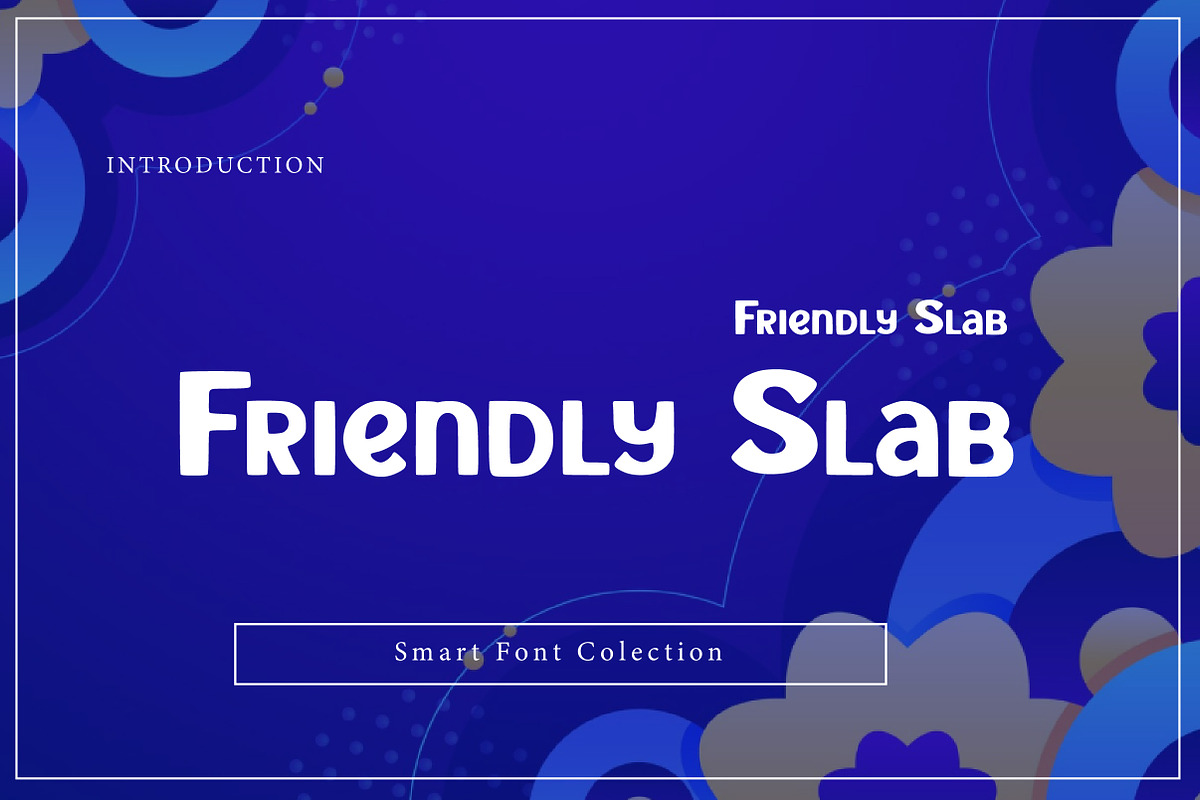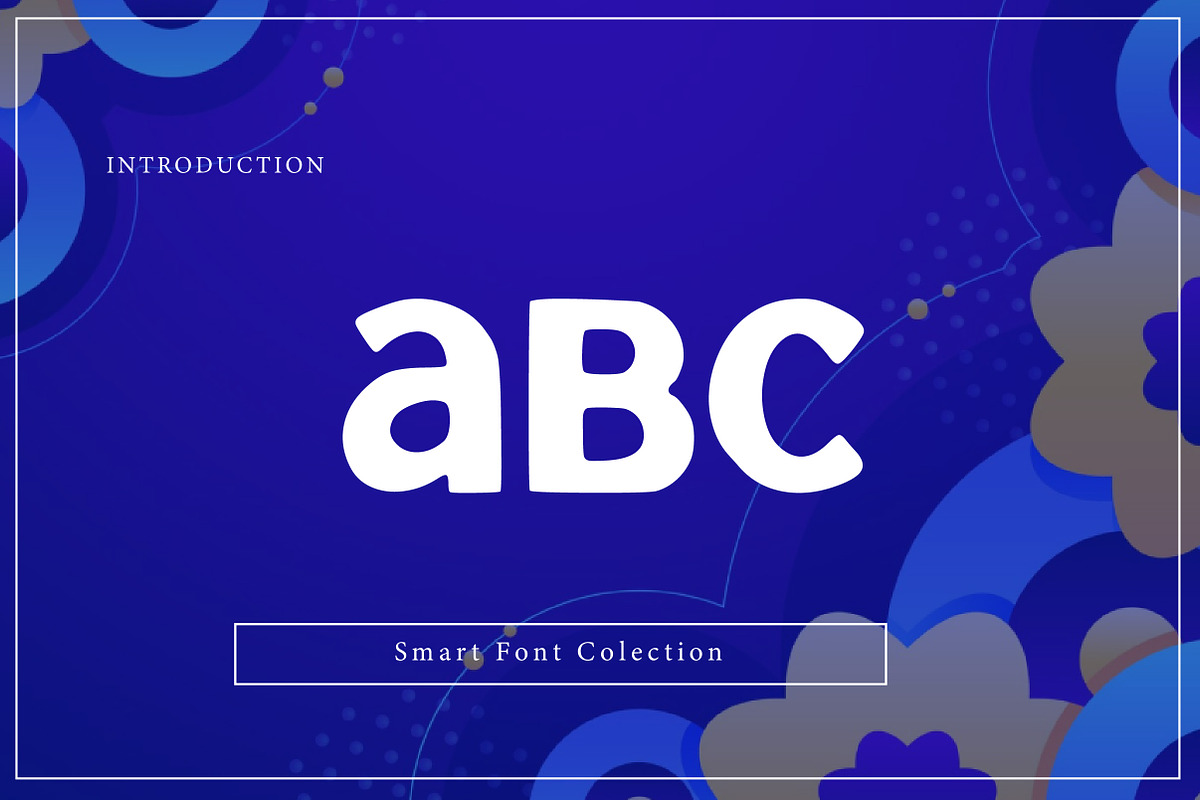
Friendly Slab
Friendly Slab is a warm, bold, and approachable slab serif display font designed to create a cheerful and welcoming tone. With thick strokes, rounded edges, and soft slab serifs, this font is perfect for branding, packaging, posters, kids projects, social media graphics, product labels, signage, and playful headlines. Friendly Slab combines strong readability with a friendly personality, making it ideal for modern designs that need charm, fun, and a clean bold look.